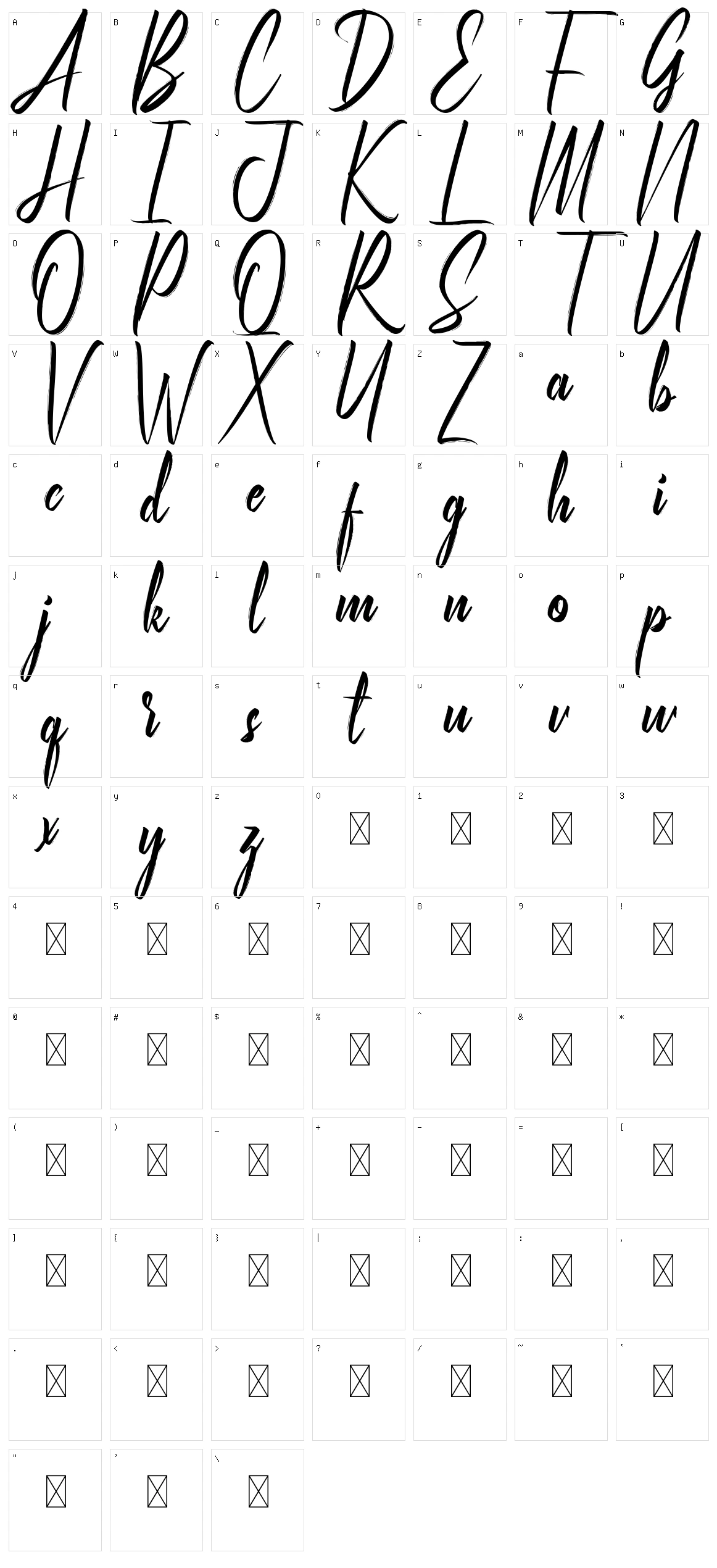
The free font Glossariest is carefully designed by RaisProject, showcasing a thoughtful balance of creativity and usability and falls under the Script font style. When you download the ZIP file, it contains only 460.93 KB of font files, making it lightweight and quick to download. Please review the license details below to understand permitted usage and distribution rights. If license information is not available, we recommend using this font for personal projects only or contacting the author directly for commercial usage permissions.